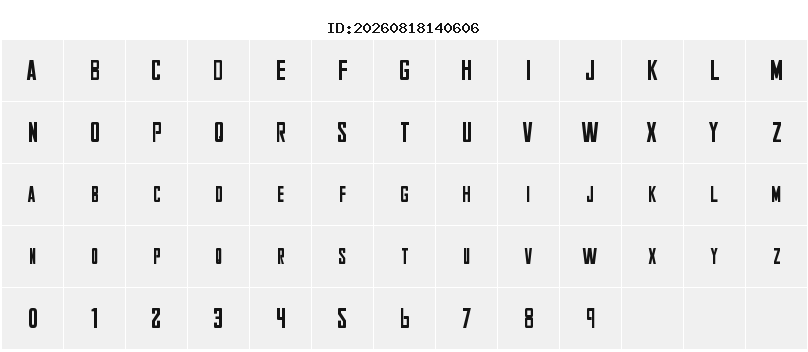
• Font Name: Smallville
• Full Font Name: Smallville Solid
About Smallville.ttf
Smallville.ttf is a modern, elegant sans-serif font designed for ultimate readability and visual harmony. Perfect for branding, headlines, web design, and print materials.